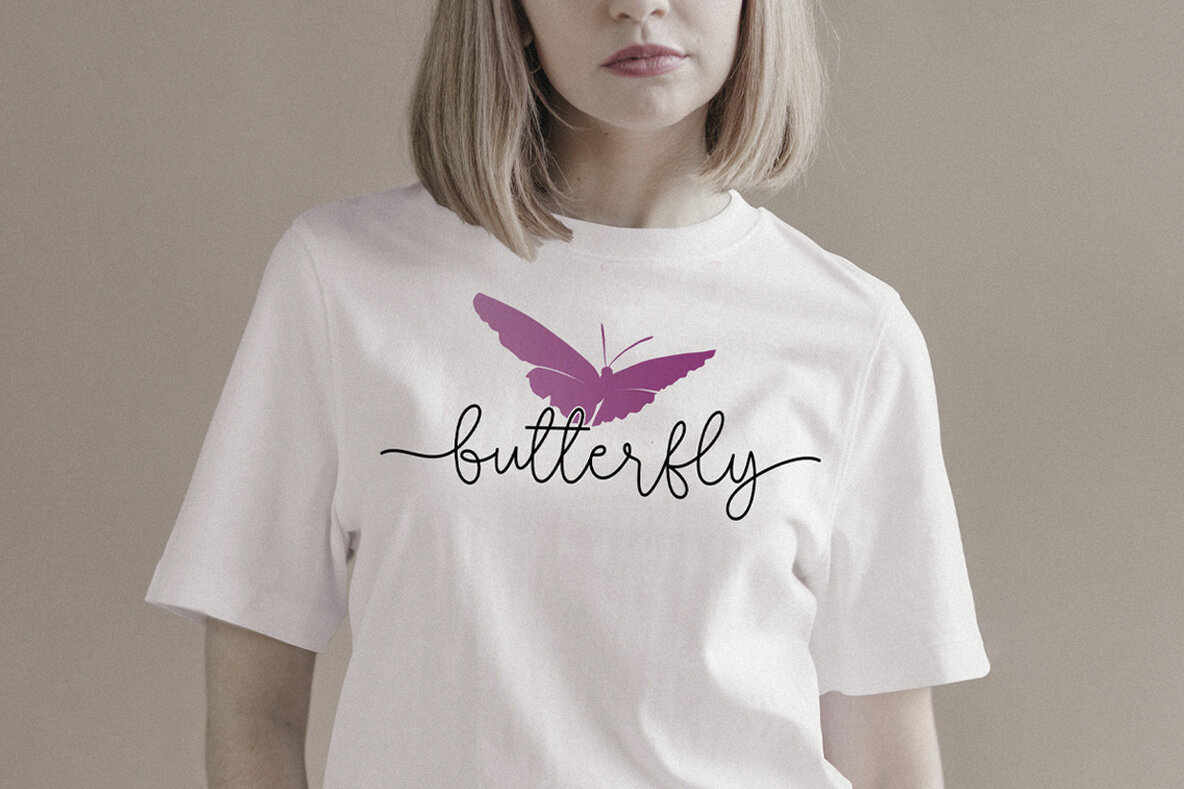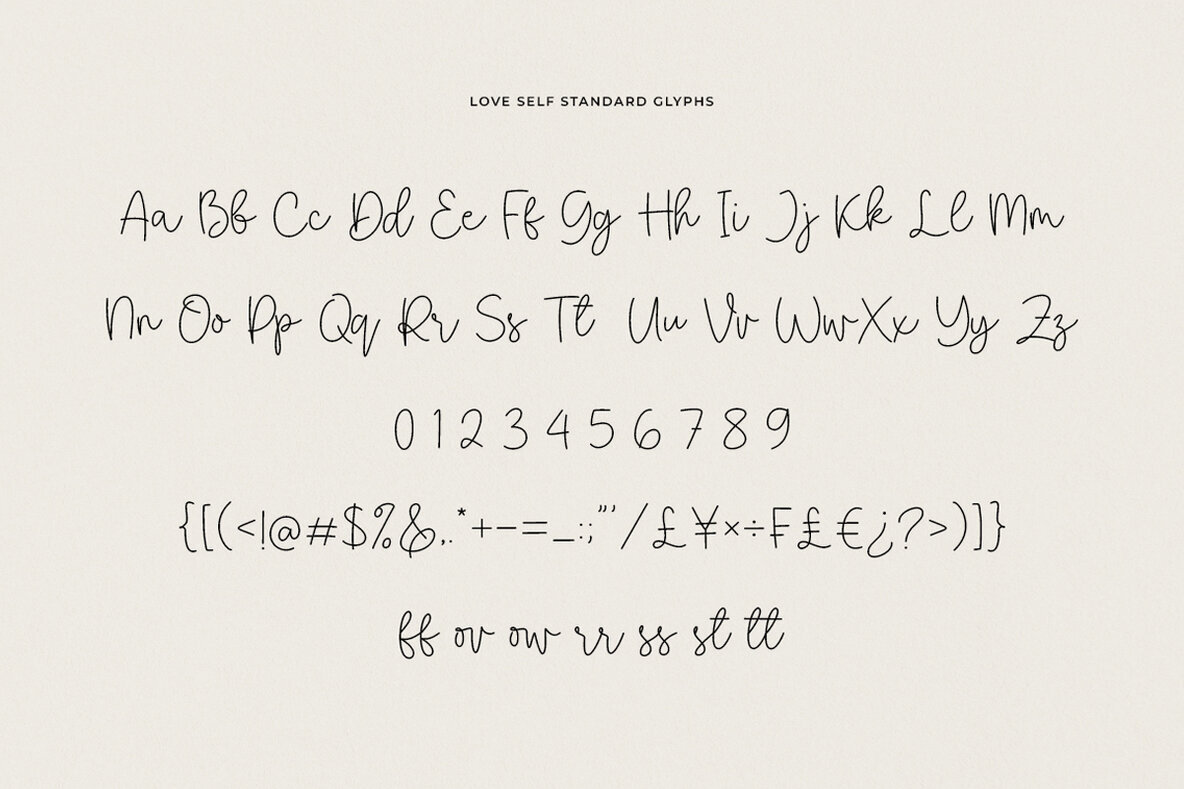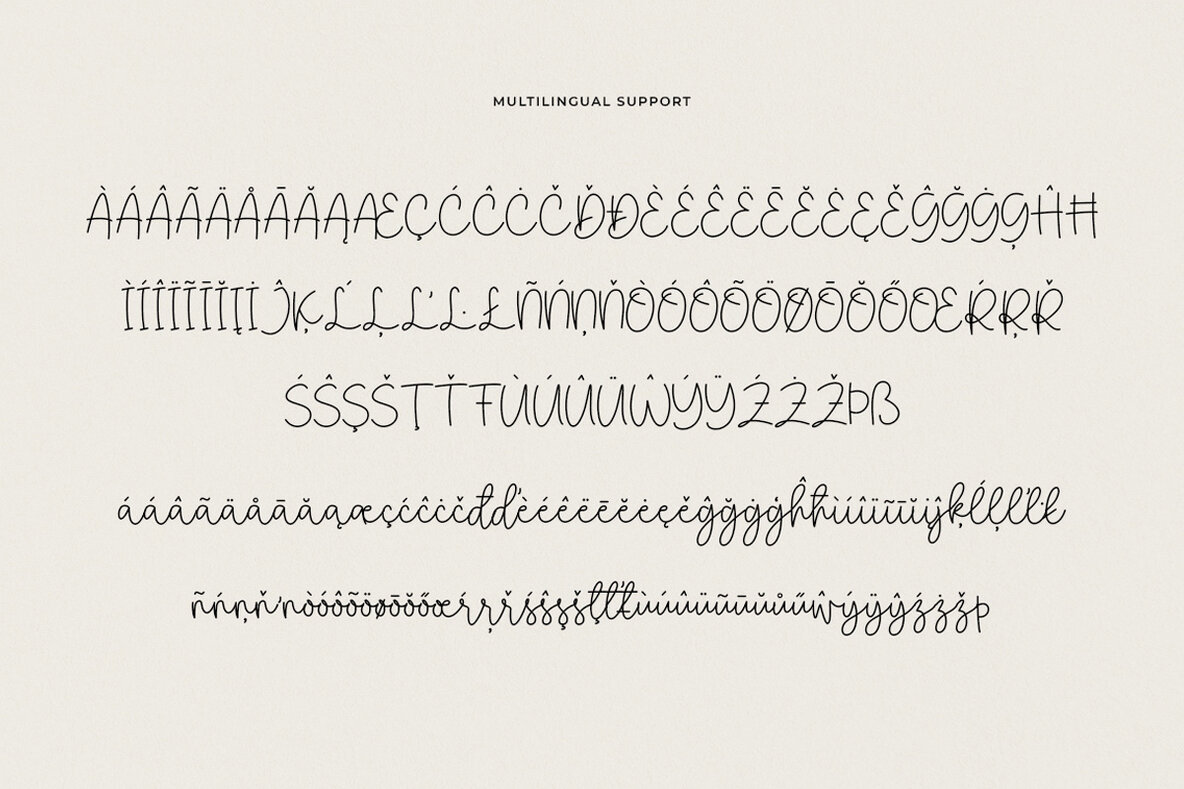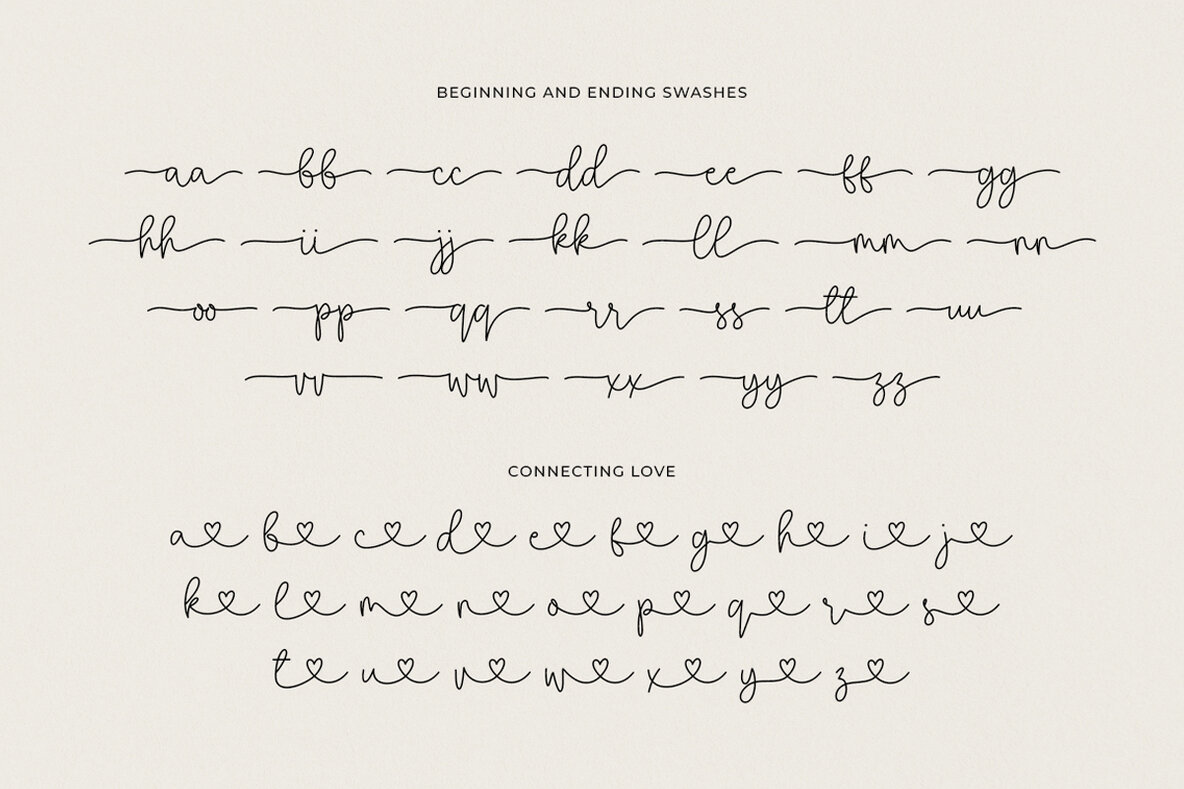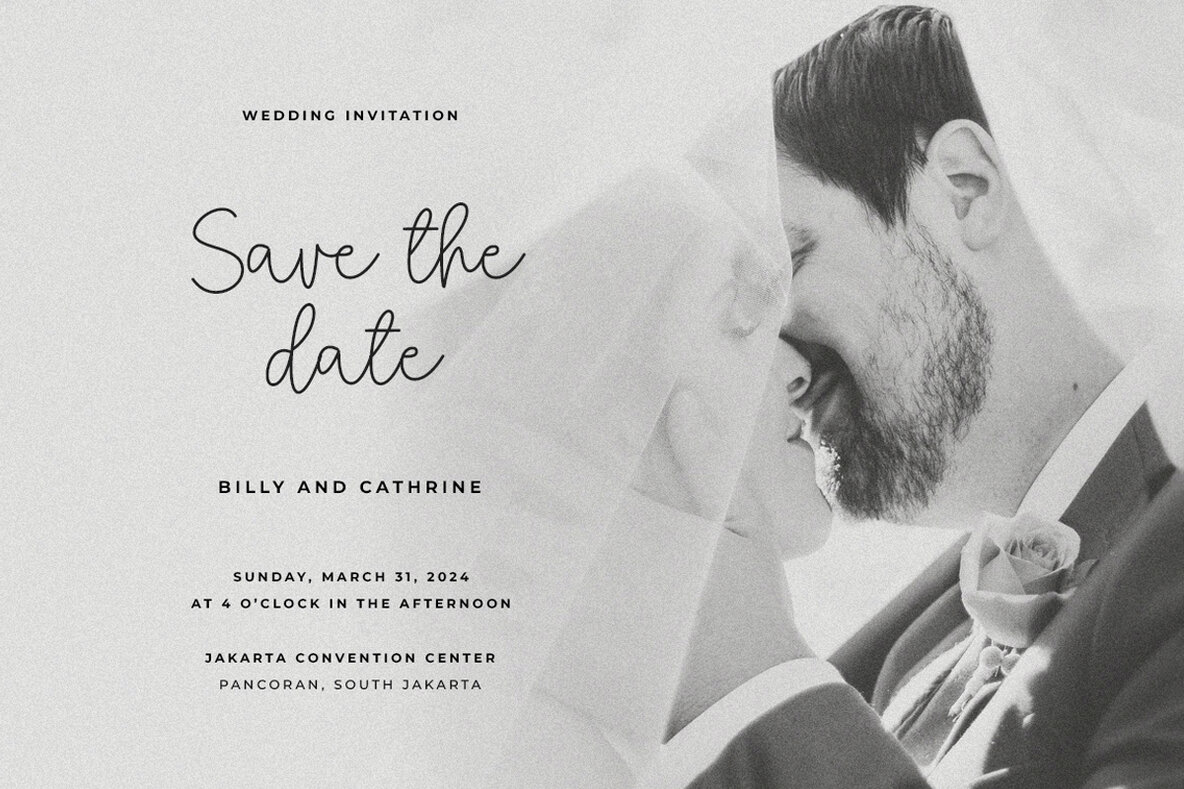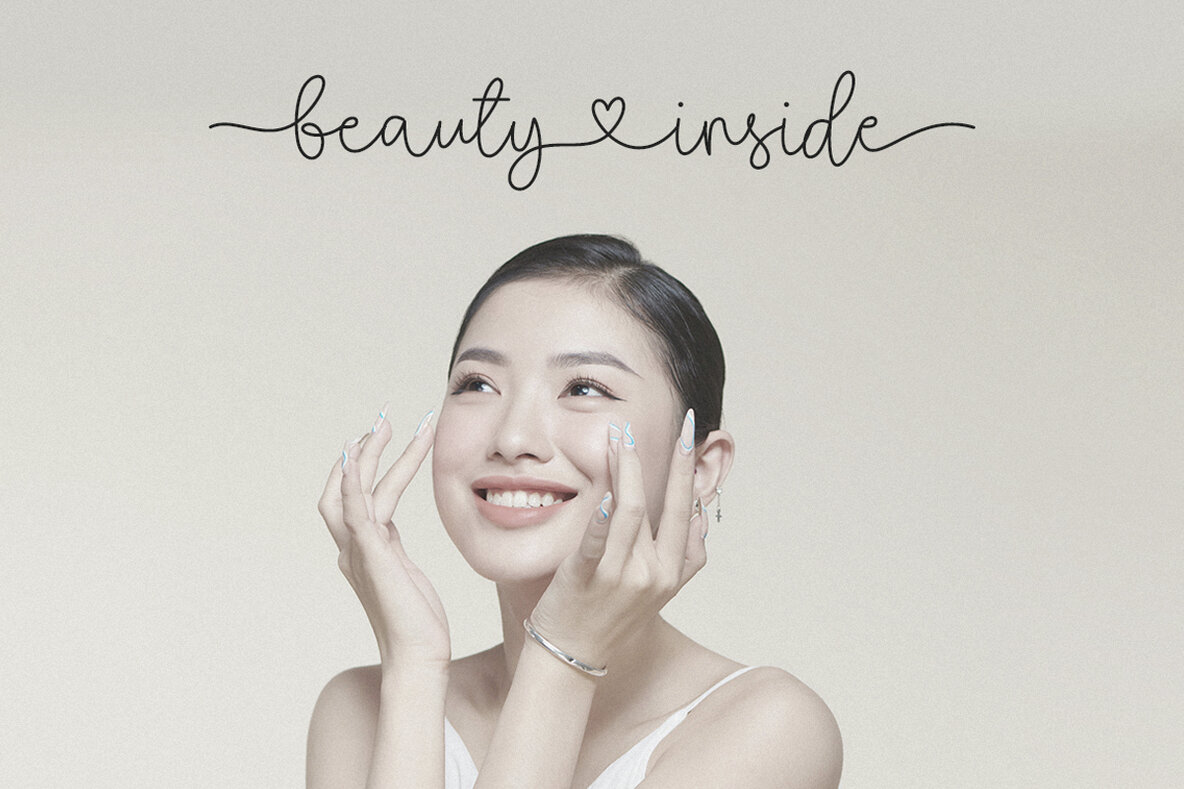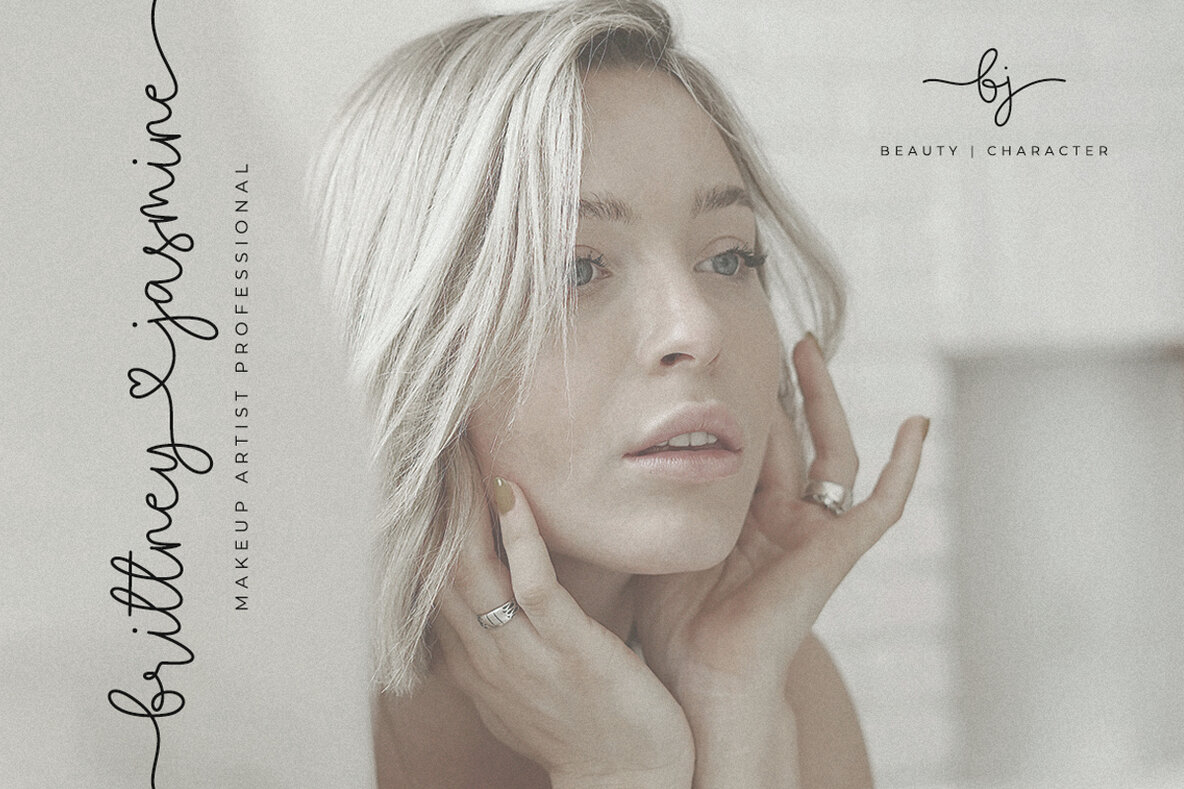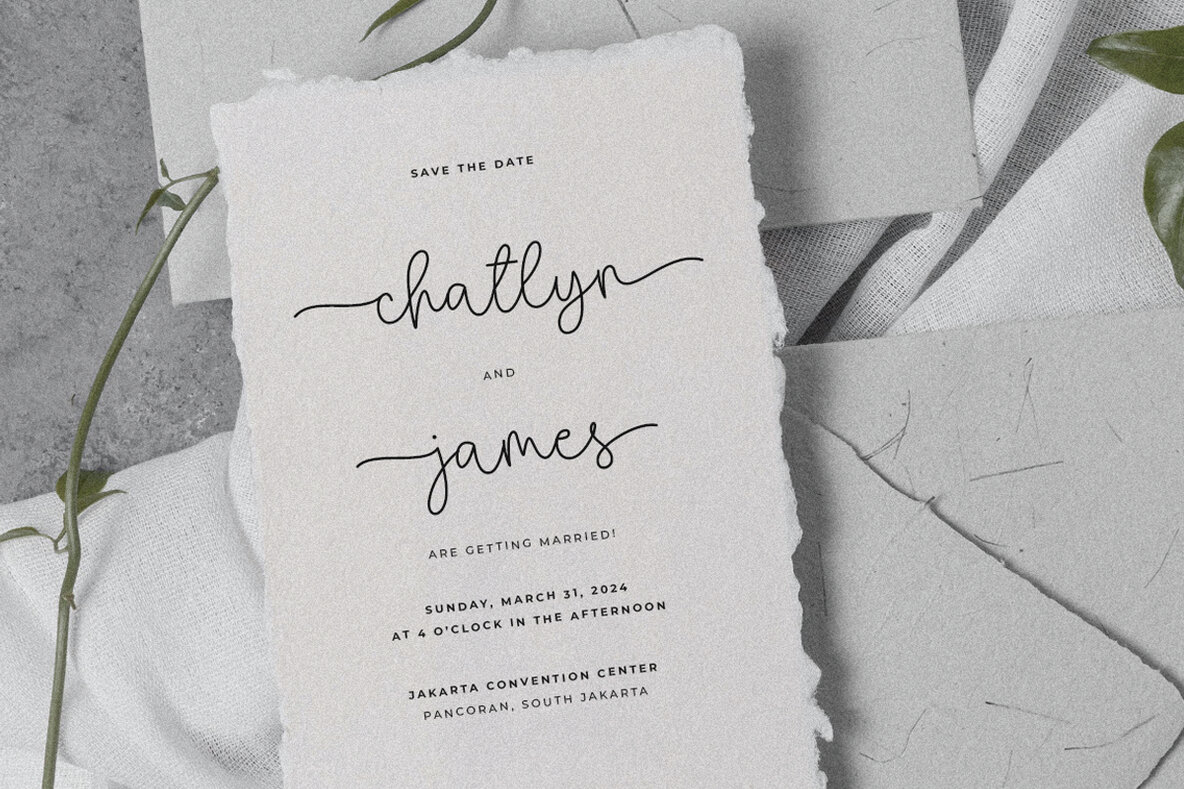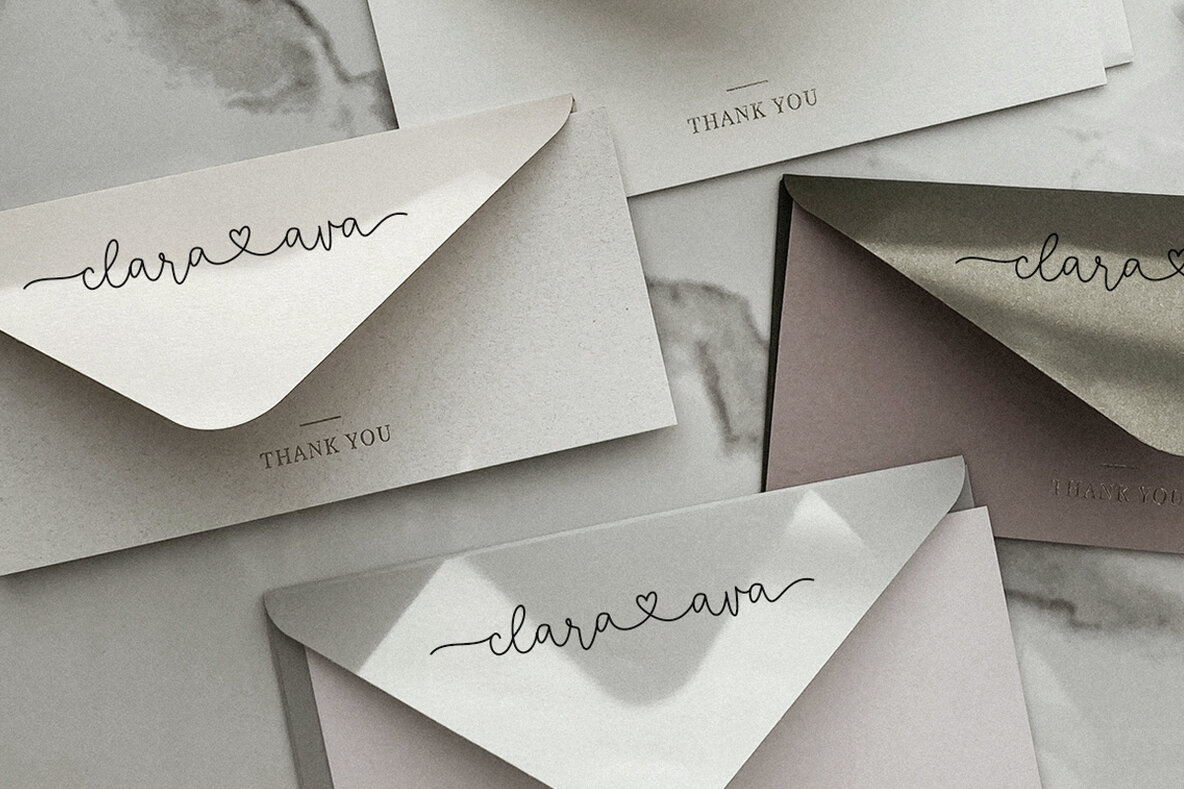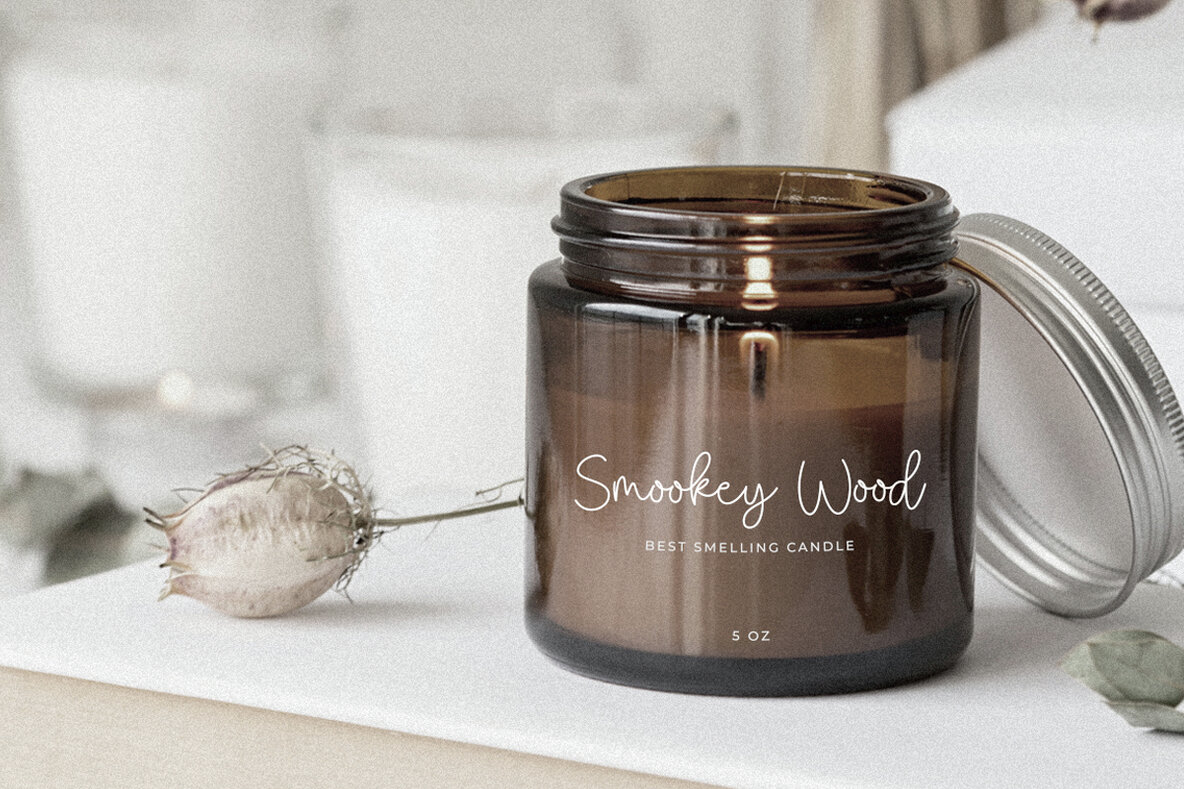
Love Self Font
Love Self Regular
Love Self is a lovely script font that bewitches with its delicate strokes and elaborate swashes. Featuring lavish beginning and ending strokes, it adds an air of refinement and romance to any text. Ideal for wedding invitations, branding, inspiring quotes, and social media posts, Love Self provides a timeless allure. Its dynamic nature and aesthetic appeal infuse designs with opulence and grace, captivating the viewer and speaking the language of elegance.